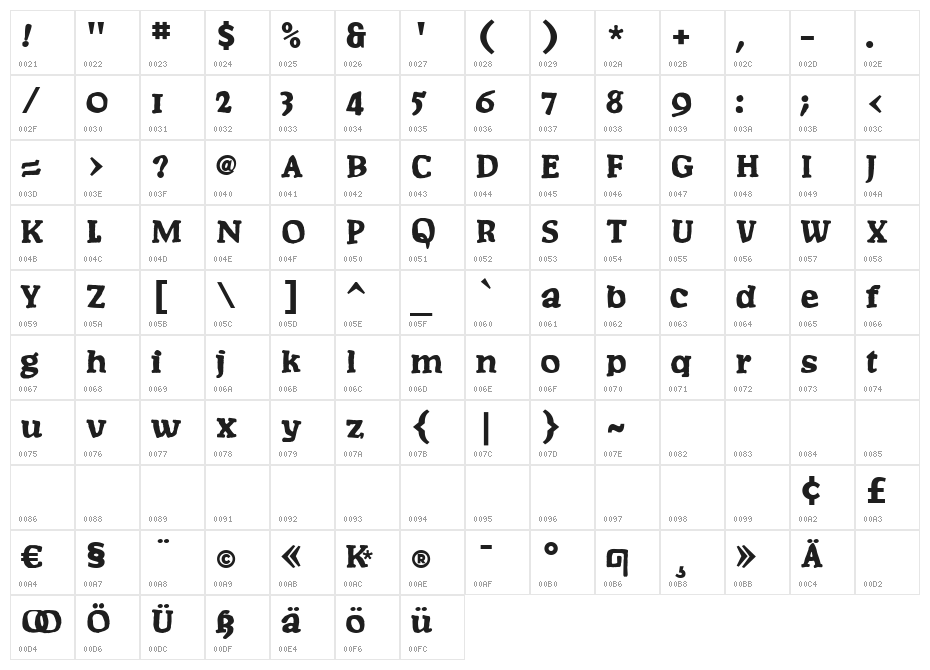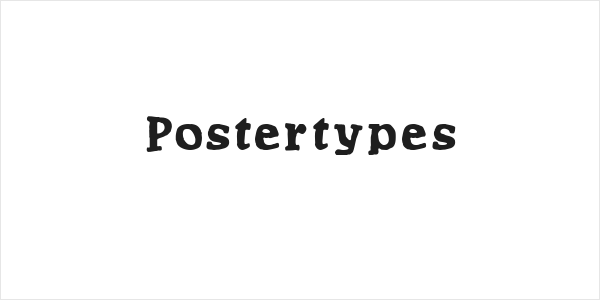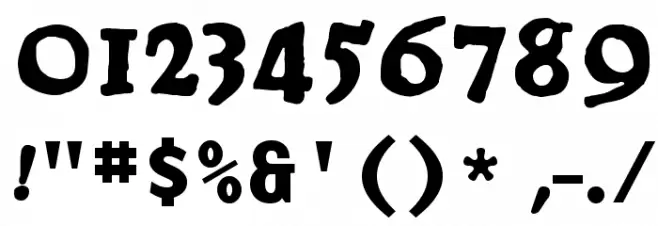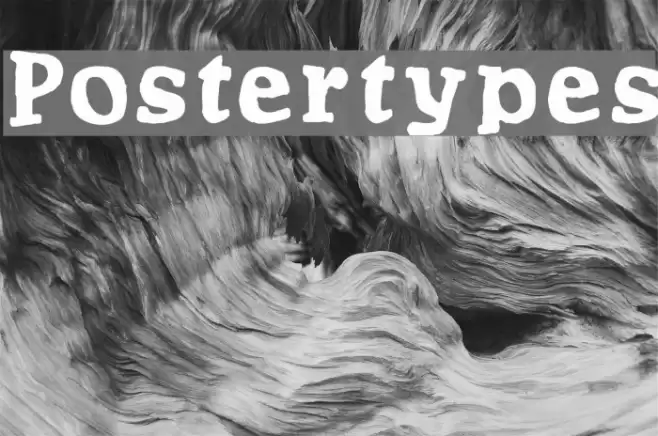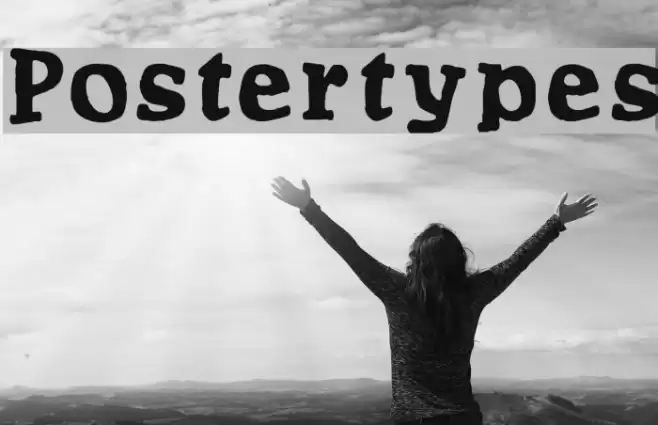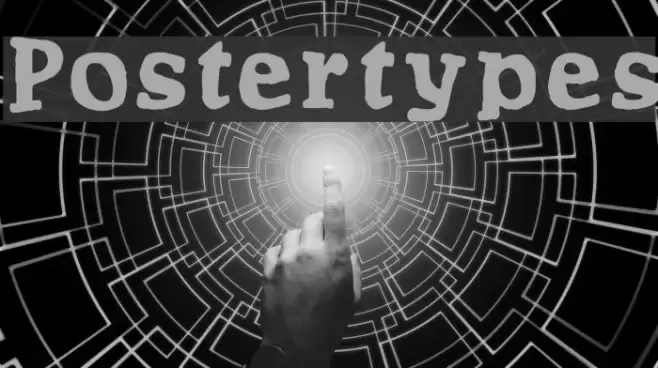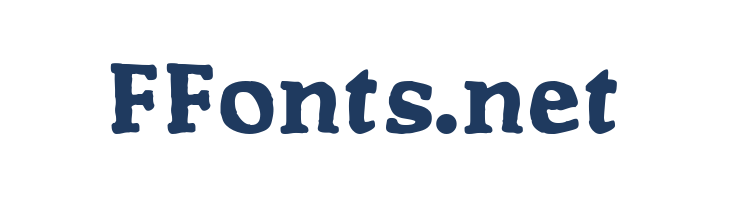
Postertypes Font
Postertypes Description
This font features a bold and playful style with a hand-drawn appearance. The characters have a slightly irregular shape, giving them a whimsical and artistic feel. The strokes are thick and consistent, providing a strong presence on the page. The uppercase and lowercase letters maintain a cohesive look, while the numerals and special characters complement the overall design. This font is ideal for projects that require a touch of creativity and fun, such as posters, children's books, and playful branding.
| Overall Style | Playful, Artistic |
| Proposed Projects | Ideal for posters, children's books, playful branding, and creative designs. |